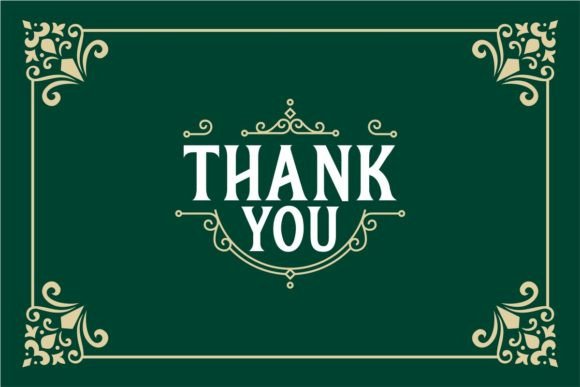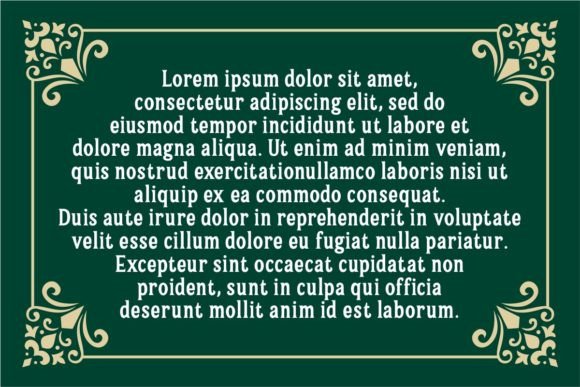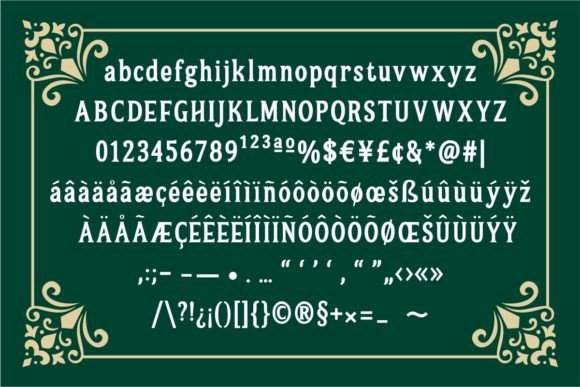
The Retro Charm of Aleciana Font: A Designer’s Delight
I still remember the frustration of working on a project, pouring my heart and soul into every detail, only to hit a roadblock when it came to finding the perfect font. My client wanted a vintage vibe, but with a modern twist – something that would make their brand stand out. That’s when I stumbled upon Aleciana Font, and let me tell you, it was love at first sight! 💕
In this article, I’ll share my experience with Aleciana, its features, and how to make the most of this beautiful font in various design applications.
An Honest Review of Aleciana Font
What I Love About Aleciana ✨
• ✅ Timeless Design: Aleciana effortlessly blends classic charm with a touch of modern flair, making it perfect for a wide range of projects.
• ✅ Versatility: This font is suitable for posters, branding, and any creative endeavor that calls for a hint of retro elegance.
• ✅ Elegant Serif: The serif details add a touch of sophistication, making it ideal for designs that require a bit of luxury and refinement.
• ✅ Easy to Read: Despite its vintage vibe, Aleciana remains highly legible, even at smaller font sizes.
While Aleciana is an excellent font, there are a few things to keep in mind:
• 🤔 Limited Use in Body Text: Due to its elegant serif design, Aleciana might not be the best choice for lengthy body text. It’s better suited for headlines, titles, or short paragraphs.
• 🤔 Requires Attention to Kerning: As with any serif font, pay attention to kerning to ensure that the letters flow smoothly, especially at larger font sizes.
The Story Behind Aleciana Font
Aleciana Font was designed with the goal of creating a timeless, yet modern serif font. The designer aimed to blend classic elegance with a touch of contemporary flair, making it perfect for a wide range of creative projects. Inspired by vintage typography, Aleciana brings a sense of sophistication and refinement to any design.
Q: What makes Aleciana Font unique?
A: Aleciana’s unique blend of classic charm and modern flair sets it apart from other serif fonts.
Q: Is Aleciana Font suitable for body text?
A: While Aleciana is elegant and readable, it’s better suited for headlines, titles, or short paragraphs. For lengthy body text, consider a font with a more straightforward design.